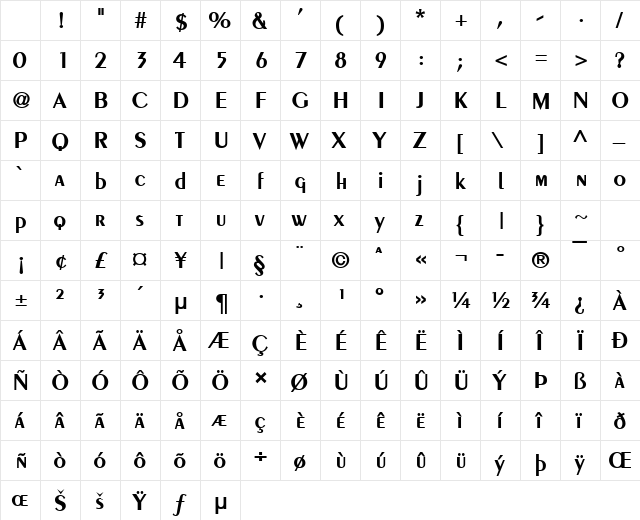
Complete Pare Bold glyph index. Displaying only characters natively supported by Pare Bold font.
Pare is a composed and adaptable typeface that performs quietly and consistently across a wide range of design contexts. Its bold stroke weight gives it real presence on the page.